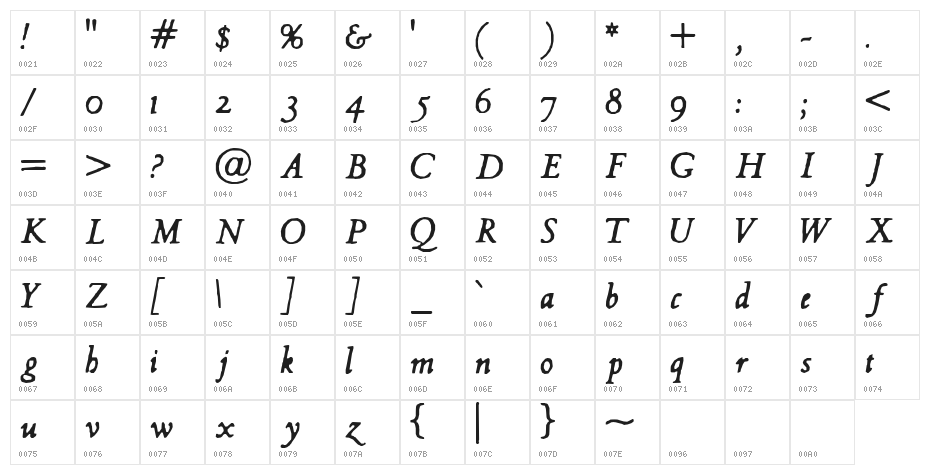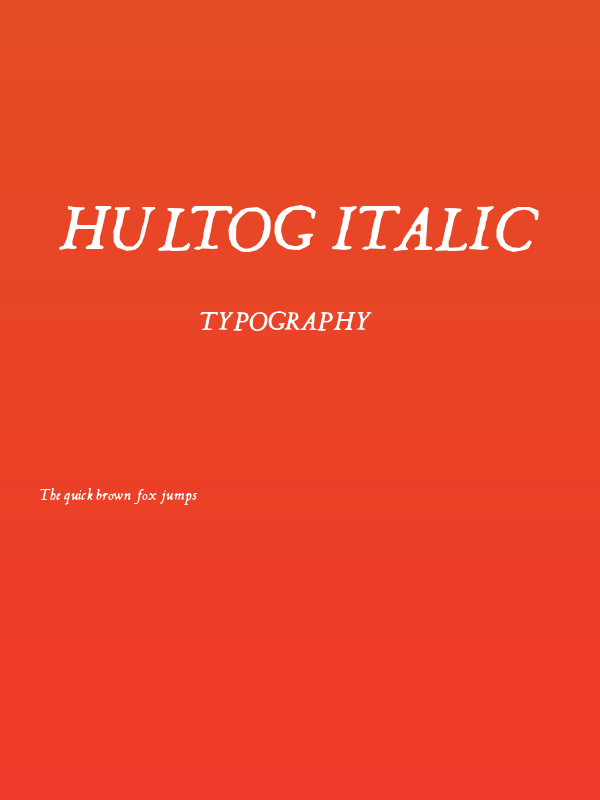
Hultog Italic Font
Hultog Italic Description
This font exhibits a dynamic and expressive style, characterized by its italicized and slightly slanted letterforms. The strokes are fluid and organic, giving it a handwritten appearance. The uppercase letters maintain a consistent height, while the lowercase letters show a playful variation in size, adding to its charm. The numerals are bold and clear, ensuring readability. Special characters are well-integrated, maintaining the overall aesthetic. The font's unique style makes it suitable for creative and artistic projects, where a touch of elegance and personality is desired.
| Proposed Projects | Ideal for invitations, greeting cards, artistic posters, and branding materials that require a personal touch. |